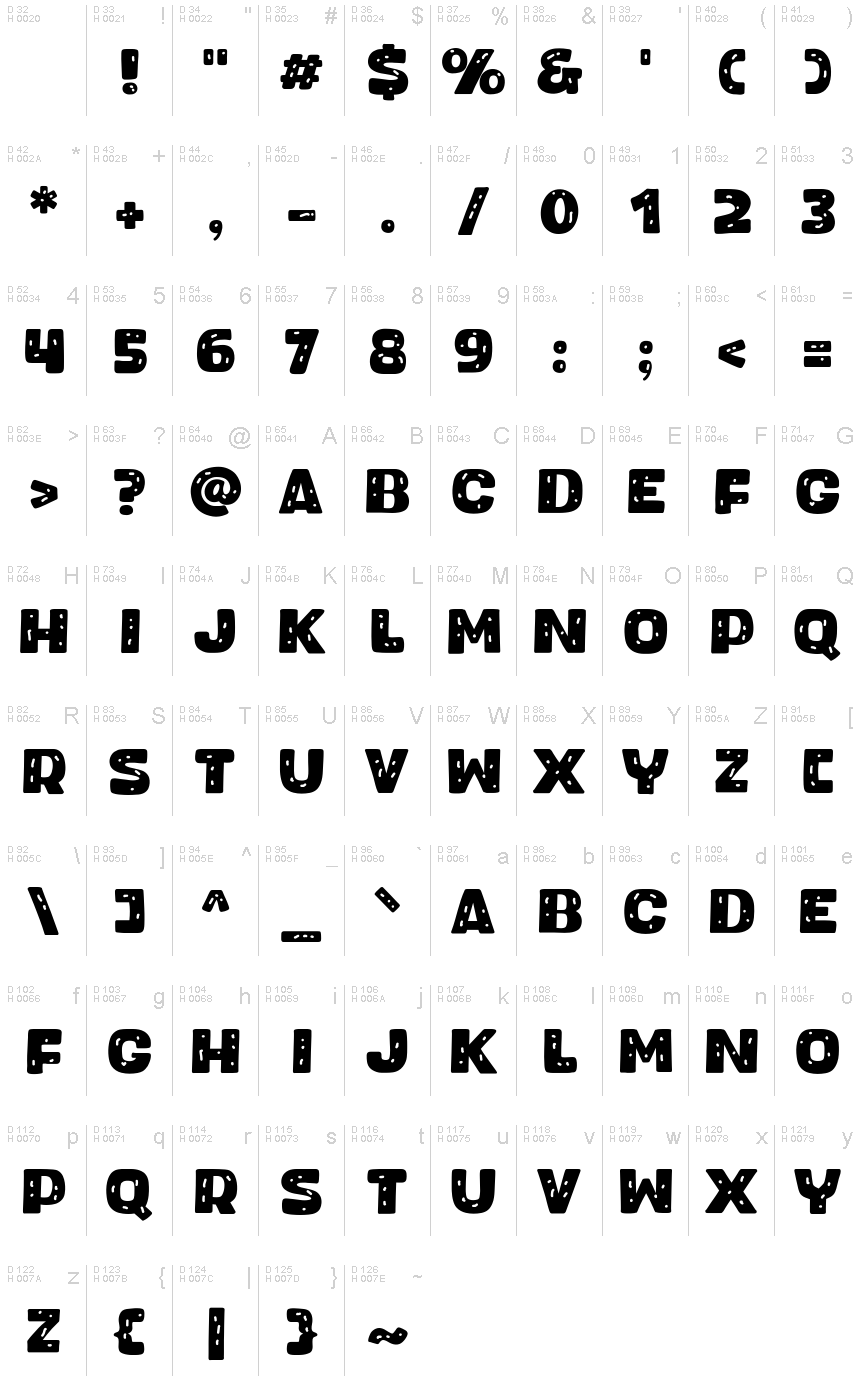
Bigfans
Bigfans, a captivating display font crafted by the talented designer Khurasan, exudes a whimsical and playful charm. With its bold, expanded letterforms and distinctive cartoon-inspired aesthetic, this font commands attention, evoking a sense of energy and fun. The striking contrast between the thick, expressive strokes and the playful negative spaces creates a visually striking and memorable typographic experience.
This versatile font lends itself beautifully to a wide range of design applications, from eye-catching headlines and logo treatments to dynamic packaging designs and engaging brand identities. Bigfans' bold, expanded form and playful character make it an ideal choice for projects that aim to capture a lively, lighthearted, and approachable tone, such as children's books, toy packaging, or vibrant event branding.